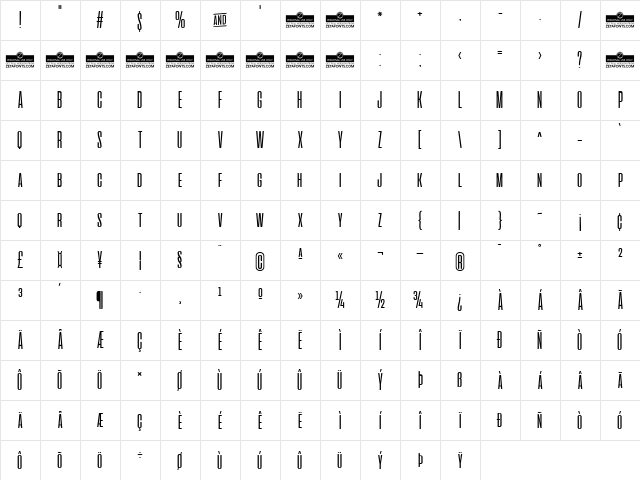
Complete Cinematografica Light glyph index. Displaying only characters natively supported by Cinematografica Light font.
Cinematografica is a composed and adaptable typeface that performs quietly and consistently across a wide range of design contexts. Its slender proportions lend an understated elegance to any composition.
Who designed the Cinematografica Light font?